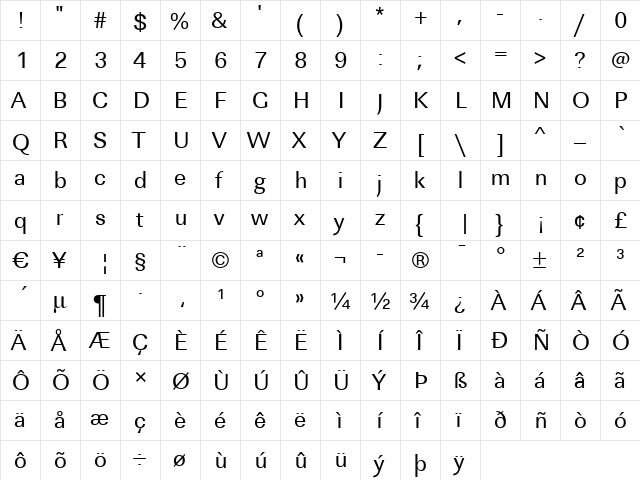
JeffBecker Regular
Design Context for JeffBecker Typeface
JeffBecker is a composed and adaptable typeface that performs quietly and consistently across a wide range of design contexts.